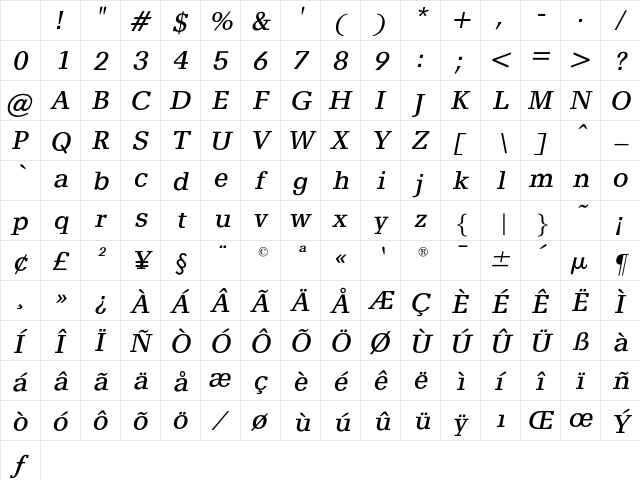
Complete AlyssaOpti Italic glyph index. Displaying only characters natively supported by AlyssaOpti Italic font.
AlyssaOpti is a composed and adaptable typeface that performs quietly and consistently across a wide range of design contexts. The slanted form adds forward momentum and visual energy.
Pro Tip: Use AlyssaOpti for emphasis, pull quotes, and subheadings where its slanted energy can add rhythm to the layout.